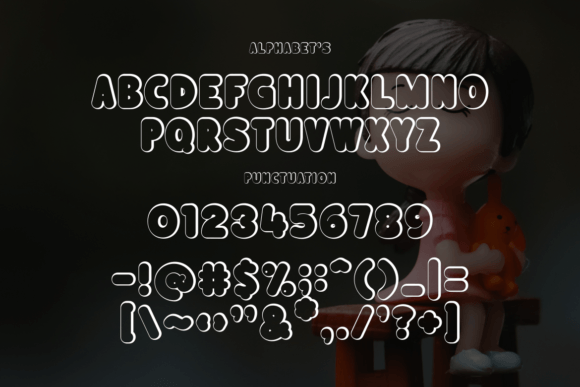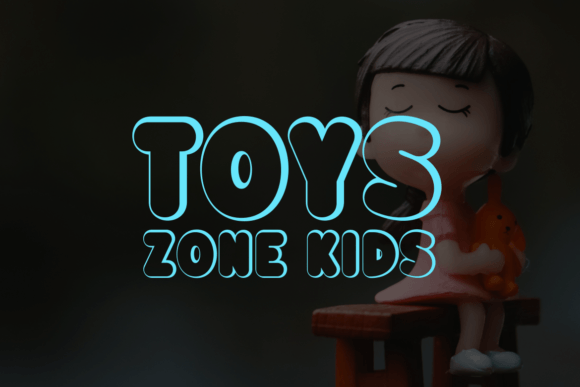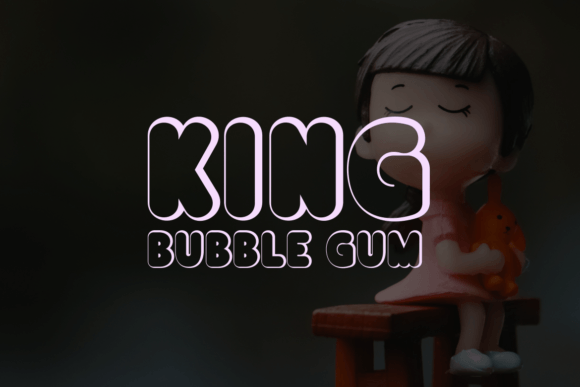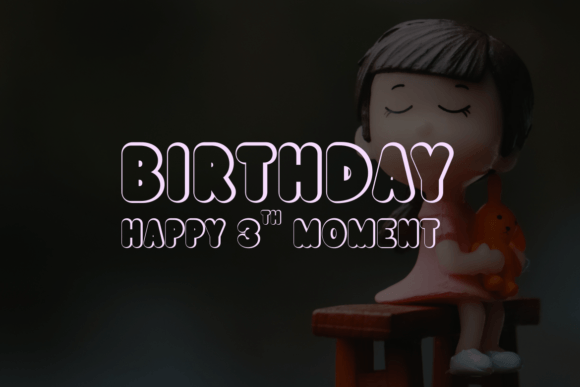
Meet the Dynoland Font, a delightful, easy-to-read display font that embodies warmth and friendliness. Whether you’re working on a project that requires a playful touch or a gentle, approachable vibe, Dynoland Font is the perfect choice. Its versatility makes it ideal for a wide range of applications, from digital design and presentations to crafts and greeting cards.
As a designer, you’ll appreciate the value of having a reliable font like Dynoland Font in your arsenal. Its friendliness and approachability make it a valuable asset for any project, and its ease of use ensures that you can focus on what matters most – bringing your creative vision to life.
Dynoland Font Key Features
- Font Family: Dynoland Font is a sans-serif font family with a unique, futuristic design.
- Size: The font family includes 6 font weights, ranging from Thin (100) to Extra Bold (800).
- Resolution: Optimized for high-resolution displays, with clear and crisp typography at resolutions up to 300 DPI.
- Unique Characteristics: Dynoland Font features a distinctive geometric shape, with clean lines and rounded edges, making it ideal for modern and tech-related designs.
Dynoland Font Review
Overall, I was excited to try out the Dynoland font, and while it has some great features, it also has some limitations.
- The font’s unique blend of futuristic and organic elements gives it a truly unique look that’s perfect for modern designs.
- The font’s versatility makes it suitable for a wide range of applications, from logos to body text.
- The font’s OpenType features allow for some amazing ligatures and contextual alternates, which can add a lot of visual interest to your designs.
- The font’s readability can be a bit of an issue, especially at smaller font sizes. The organic elements can sometimes make it difficult to distinguish between similar letters.
- The font’s weight and width range could be improved. The light weights feel a bit too light, and the bold weights feel a bit too heavy.
- The font doesn’t include as many language support as I would like, which can be a limitation for designs that need to be translated.
The Dynoland font has a lot of potential, but it’s not quite there yet. While it’s great for modern designs and has some amazing OpenType features, its limitations in terms of readability, weight range, and language support hold it back from being a truly top-notch font.
Tips for Getting the Most Out of Dynoland Font
Use the Dynoland Font for headings and titles to add a touch of modernity to your designs.
Combine the Dynoland Font with other fonts to create a unique and eye-catching typography.
The Dynoland Font is perfect for:
Modern branding and logos
Business cards and brochures
Social media graphics and ads
Web design and development